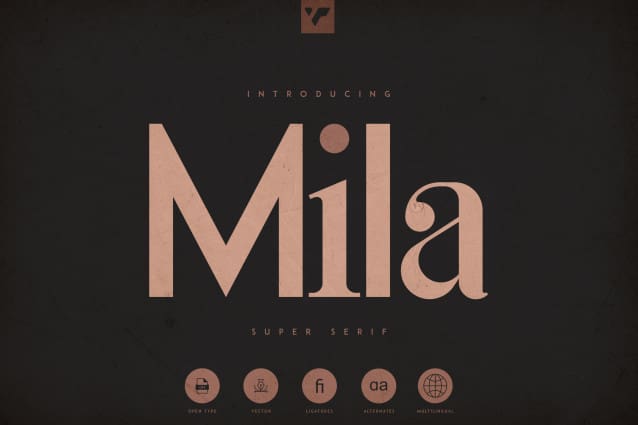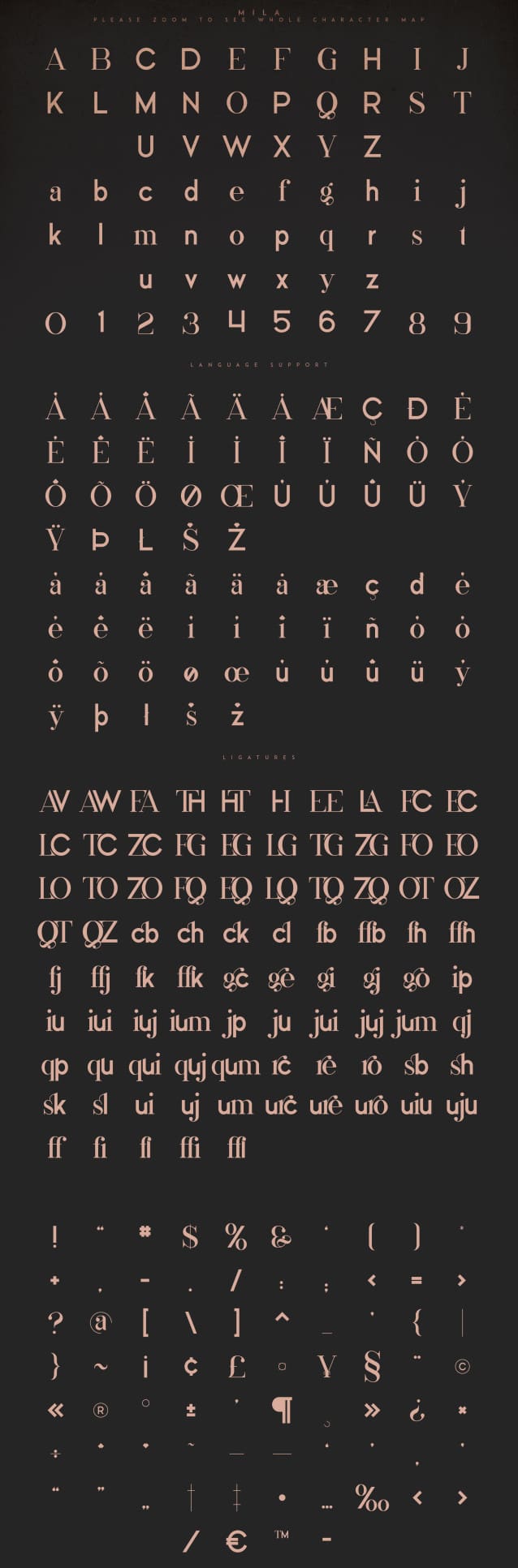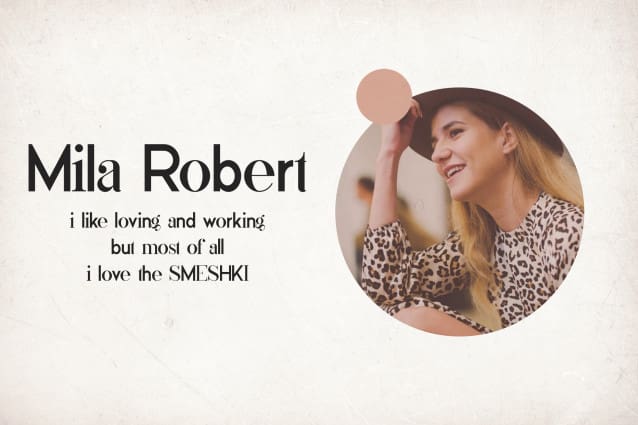
Mila Super Serif Font
Mila Super Serif Font is fusion of sans serif and serif styles, loaded with ligature glyphs and multilingual support. Very versatile font that works great in large and small sizes.
Mila is perfect for branding projects, home-ware designs, product packaging, magazine headers – or simply as a stylish text overlay to any background image.